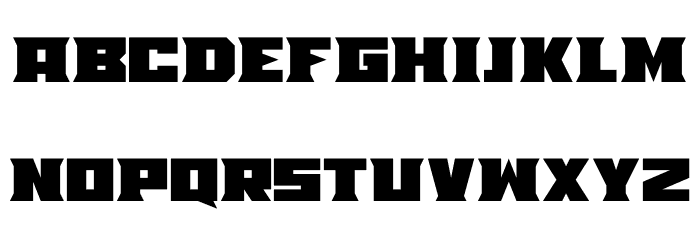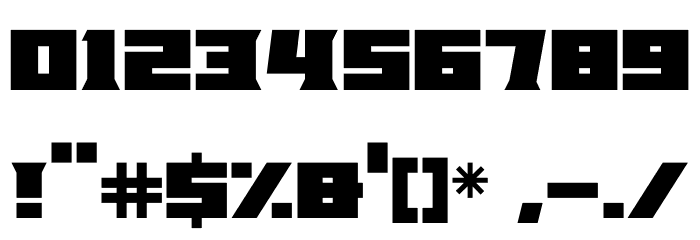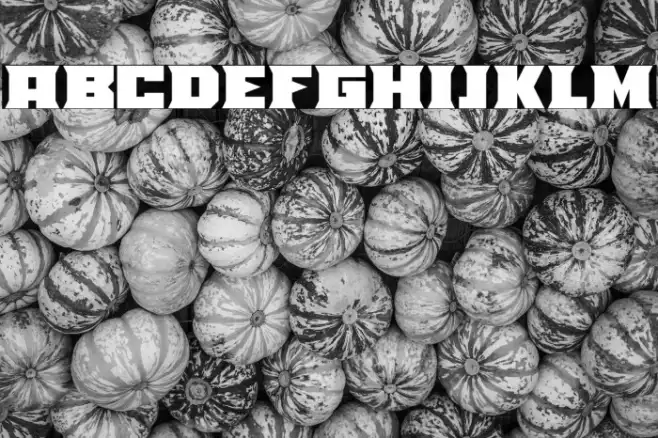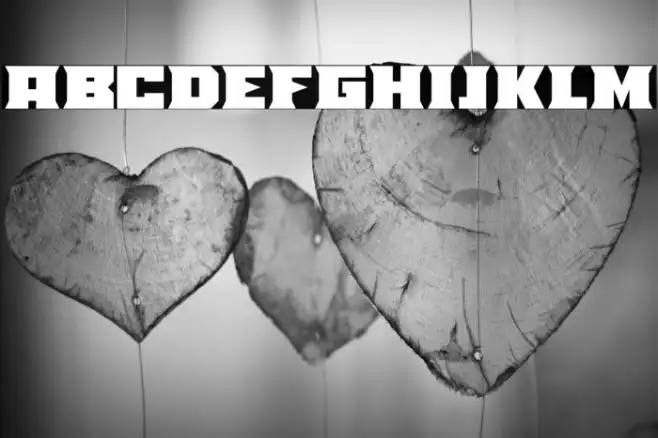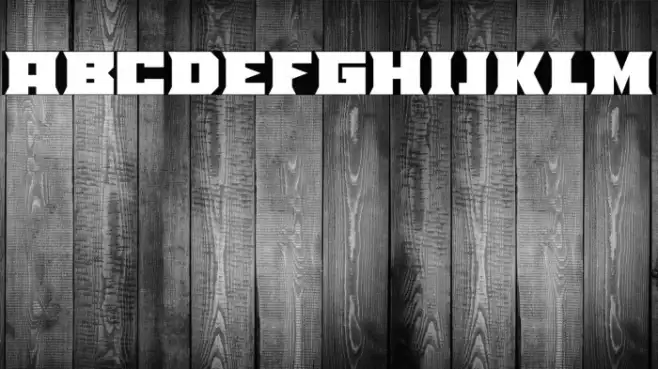
Mad Mecha Font
This font features a bold, futuristic design with sharp, angular edges and a mechanical aesthetic. The uppercase letters are robust and commanding, with a distinct geometric structure that suggests strength and precision. The lowercase letters maintain the same boldness, ensuring consistency across text. Numbers are equally bold, with a uniform height that aligns with the uppercase letters. Special characters are designed to match the overall mechanical theme, making them suitable for a cohesive design. The font's style is reminiscent of industrial and technological themes, making it ideal for projects that require a modern, edgy look.
A bold, futuristic font with sharp, angular edges and a mechanical aesthetic.
- Font: Mad Mecha
- Proposed Projects: Ideal for technology branding, video game titles, sci-fi book covers, and industrial-themed posters.